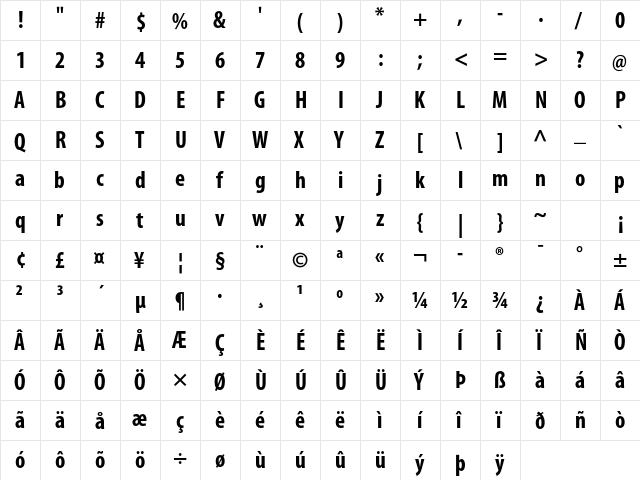
Myriad Pro Bold Condensed
| Designer | Robert Slimbach and Carol Twombly |
Design Context for Myriad Pro Typeface
Myriad Pro offers clean, dependable letterforms without strong stylistic allegiance, making it a practical choice for designers who need flexibility. Its bold stroke weight gives it real presence on the page. Its narrow stance lets it pack a punch even in space-constrained designs.
Pro Tip: Pair Myriad Pro with a font of contrasting weight or personality to build a more expressive typographic hierarchy.